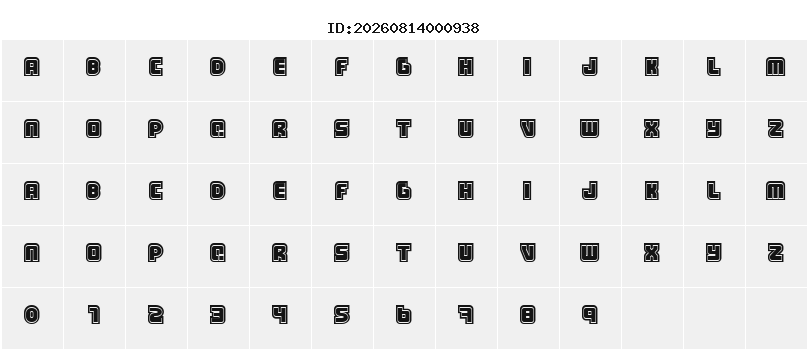
samarin Preview
• Font Name: samarin
• Font ID: Macromedia Fontographer 4.1 samarin
• Full Font Name: samarin
• Version: Fenotypefaces 2002
• PostScript Name: Samarin
• Character Count: 74
About samarin.ttf
samarin.ttf is a modern, elegant sans-serif font designed for ultimate readability and visual harmony. Perfect for branding, headlines, web design, and print materials.